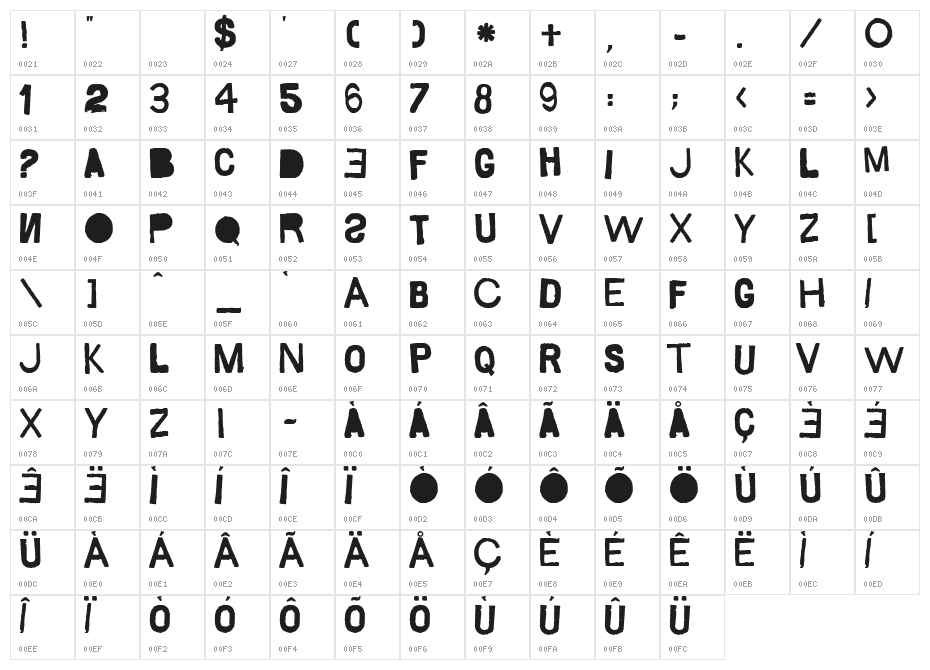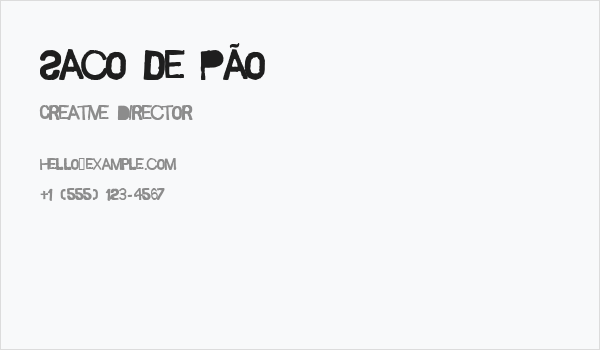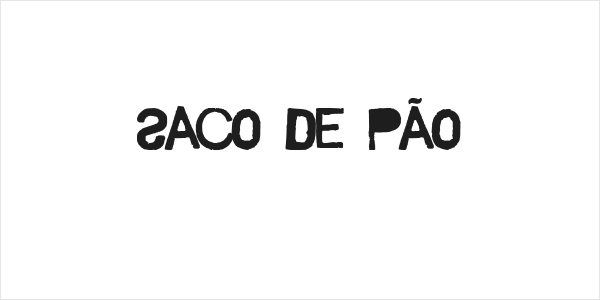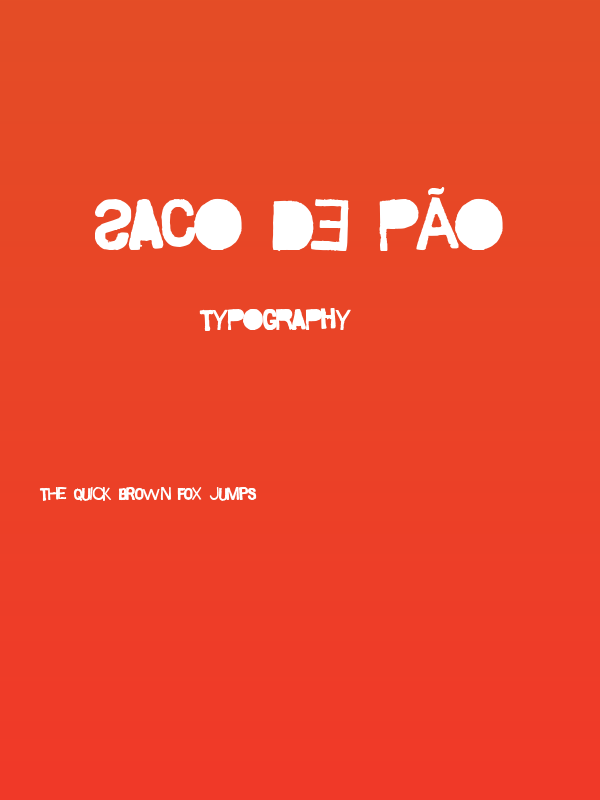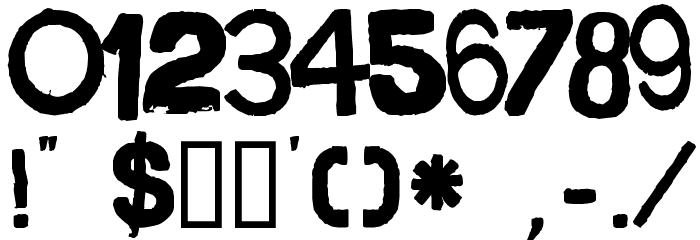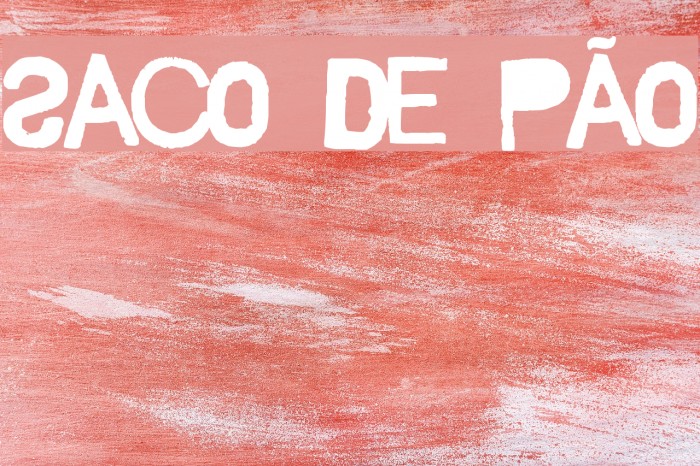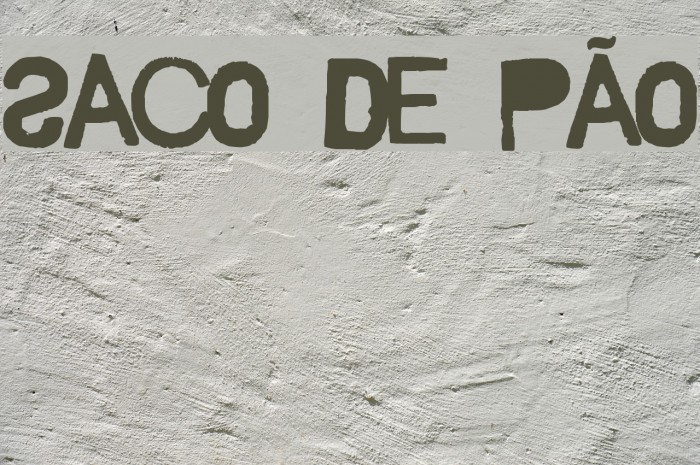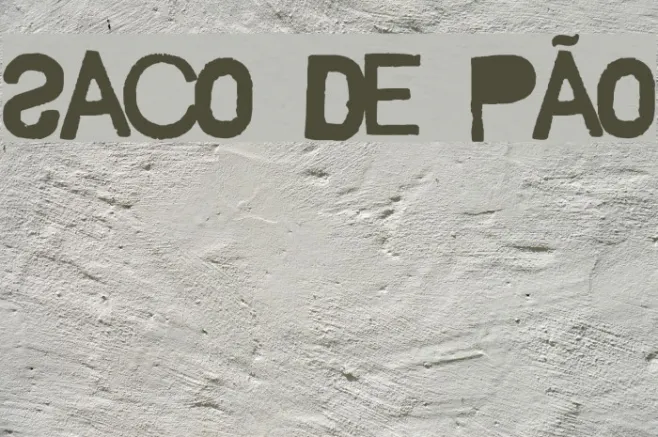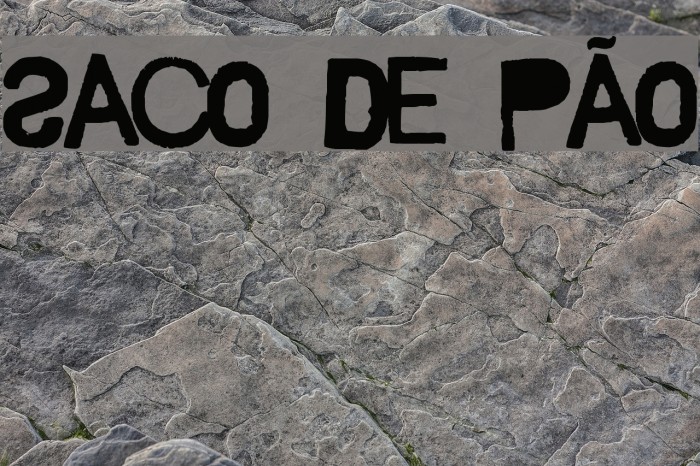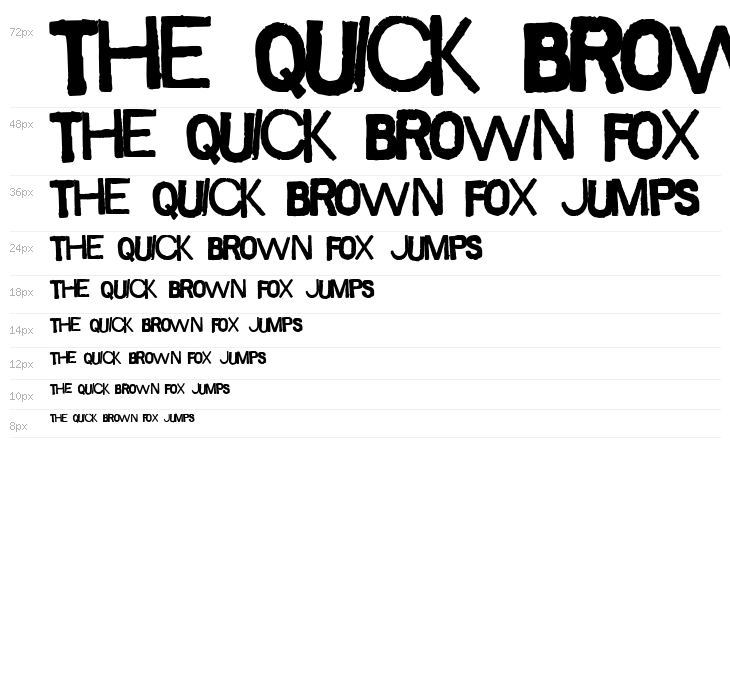
Saco de Pão Font
Saco de Pão Description
This font features a bold, hand-drawn style with a playful and artistic flair. The characters are unevenly weighted, giving them a dynamic and energetic appearance. The uppercase letters are bold and impactful, while the lowercase letters maintain a consistent style with slight variations in stroke thickness. The numbers are equally bold, matching the style of the letters. Special characters are included, maintaining the same artistic and bold characteristics. The overall design is reminiscent of a graffiti or street art style, making it suitable for creative and informal projects.
| Proposed Projects | Ideal for posters, album covers, street art-inspired designs, and creative branding projects. |